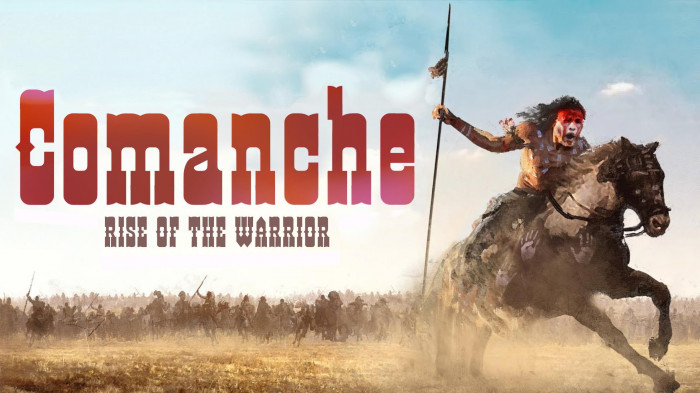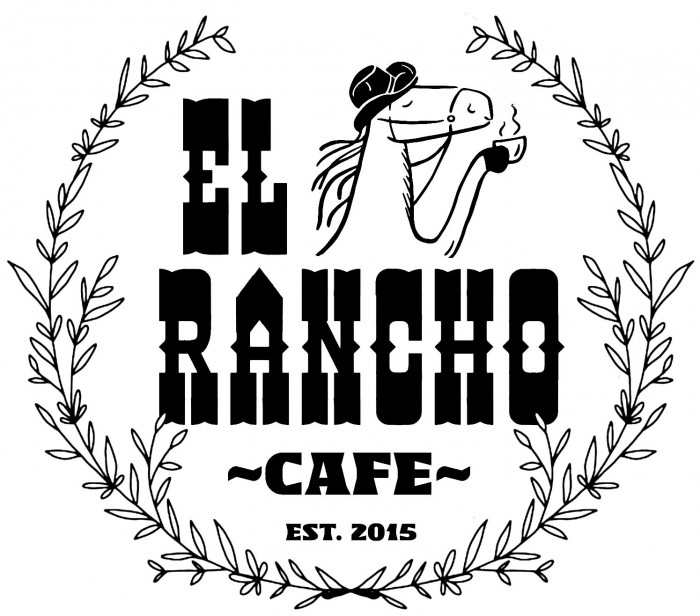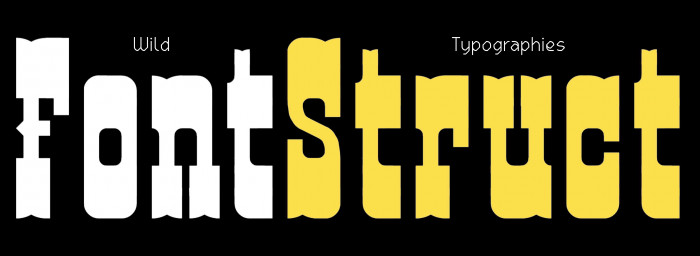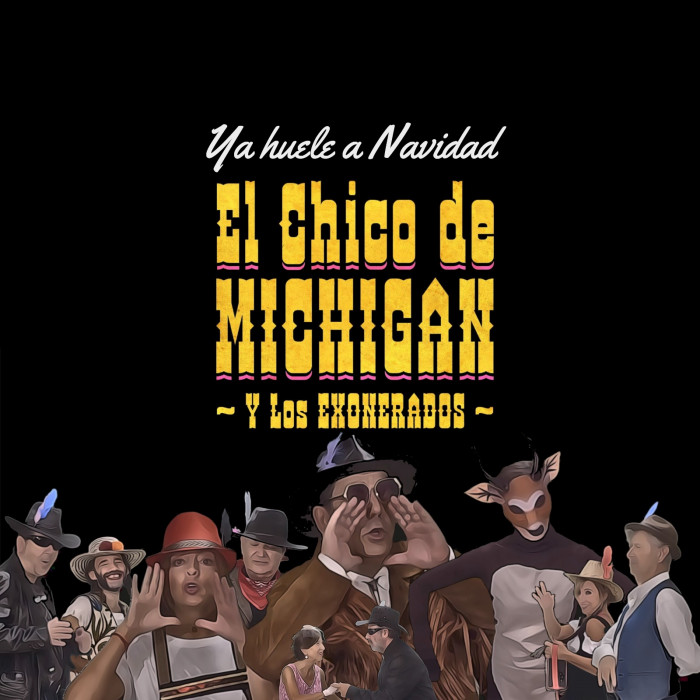
Ligatures ff and tt at the fi, ff and fl glyphs. Hope you like it.
What an excelent executed woodtype lettering with very strong and distinguishing old western style appeal. The perfect companion for a classic "Spaghetti Western".
You are great at these Western style fonts. This one is another beautiful example.
zantana in use (cover for the Xmas song by "El Chico de Michigan").